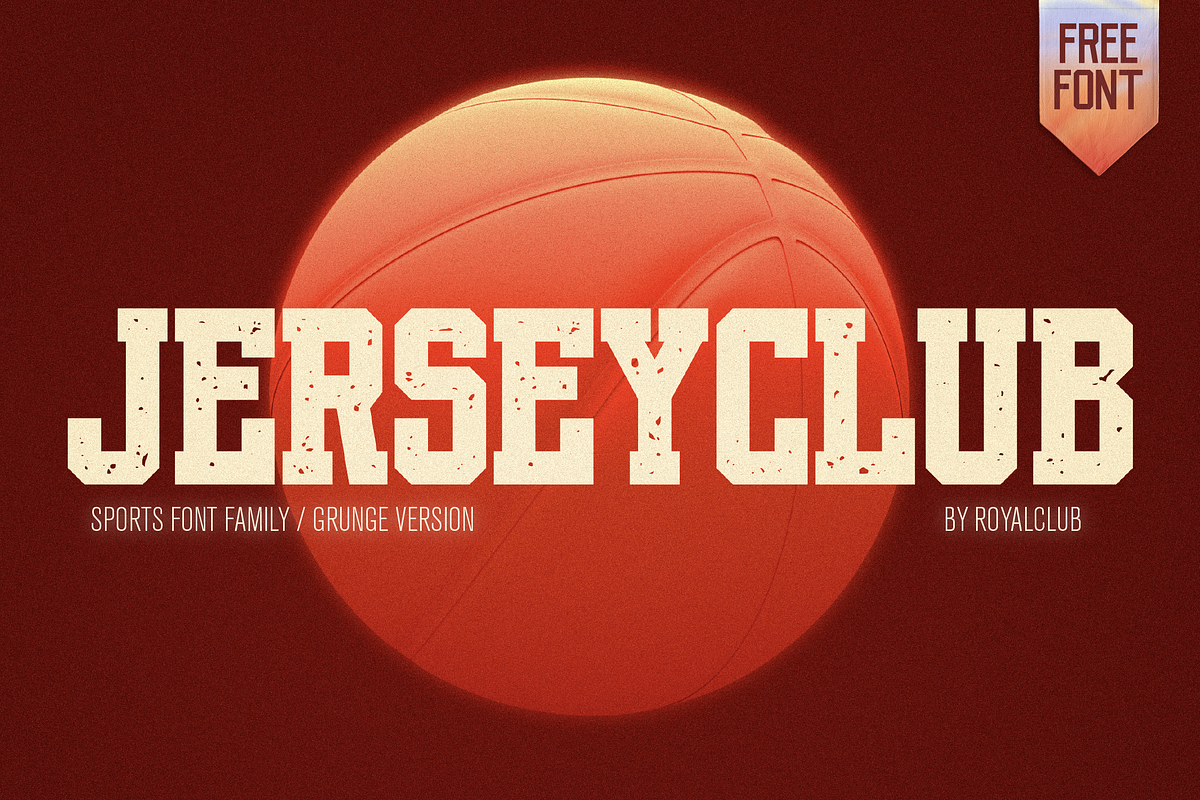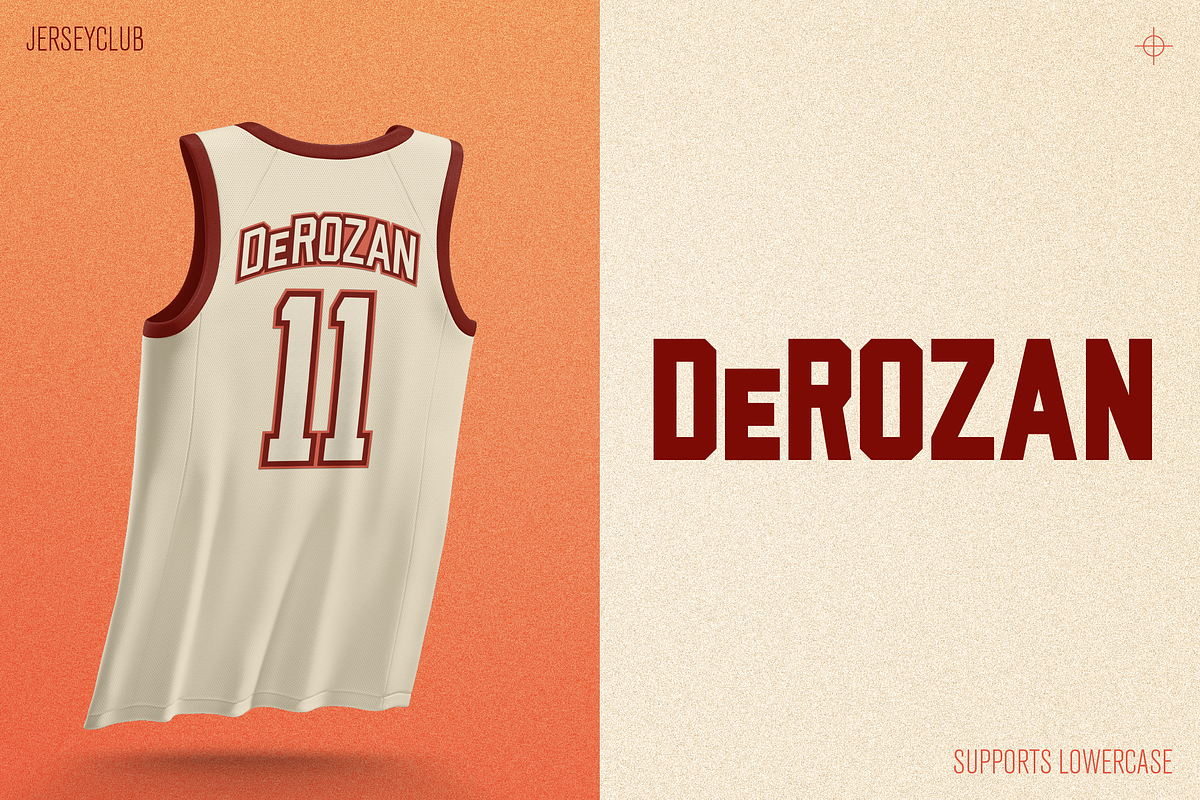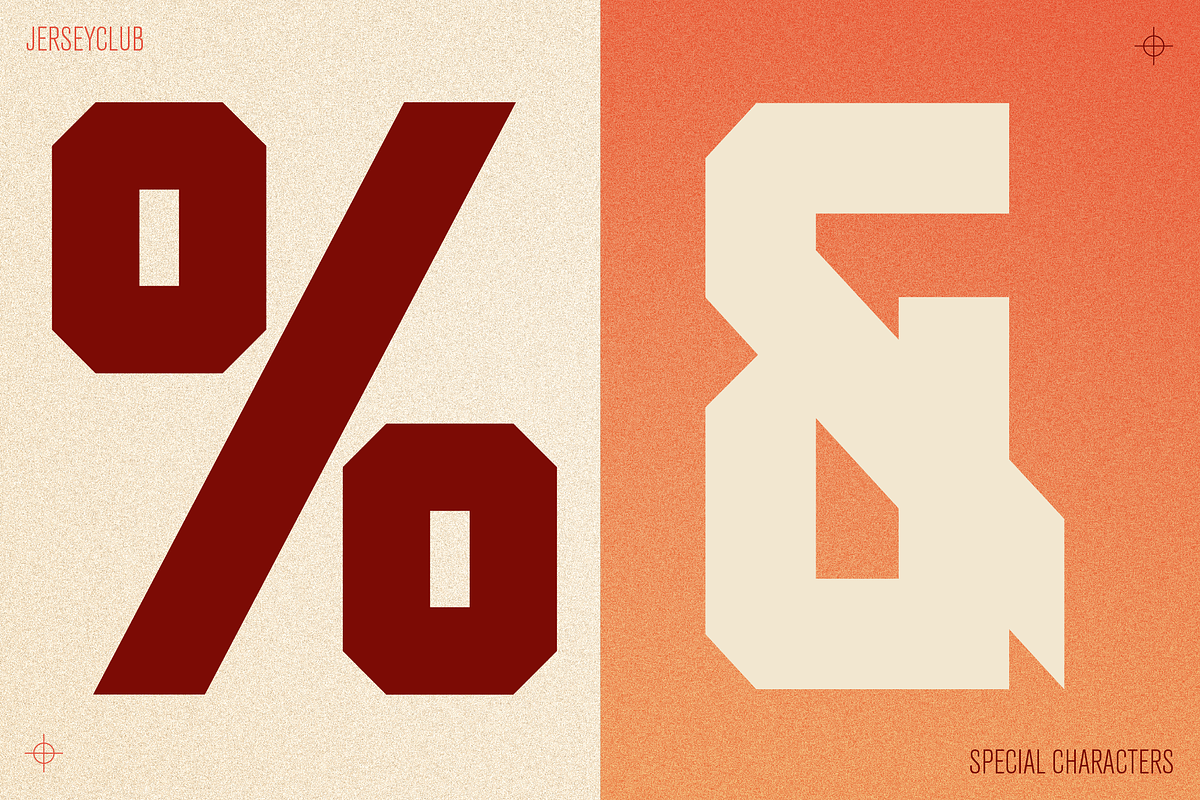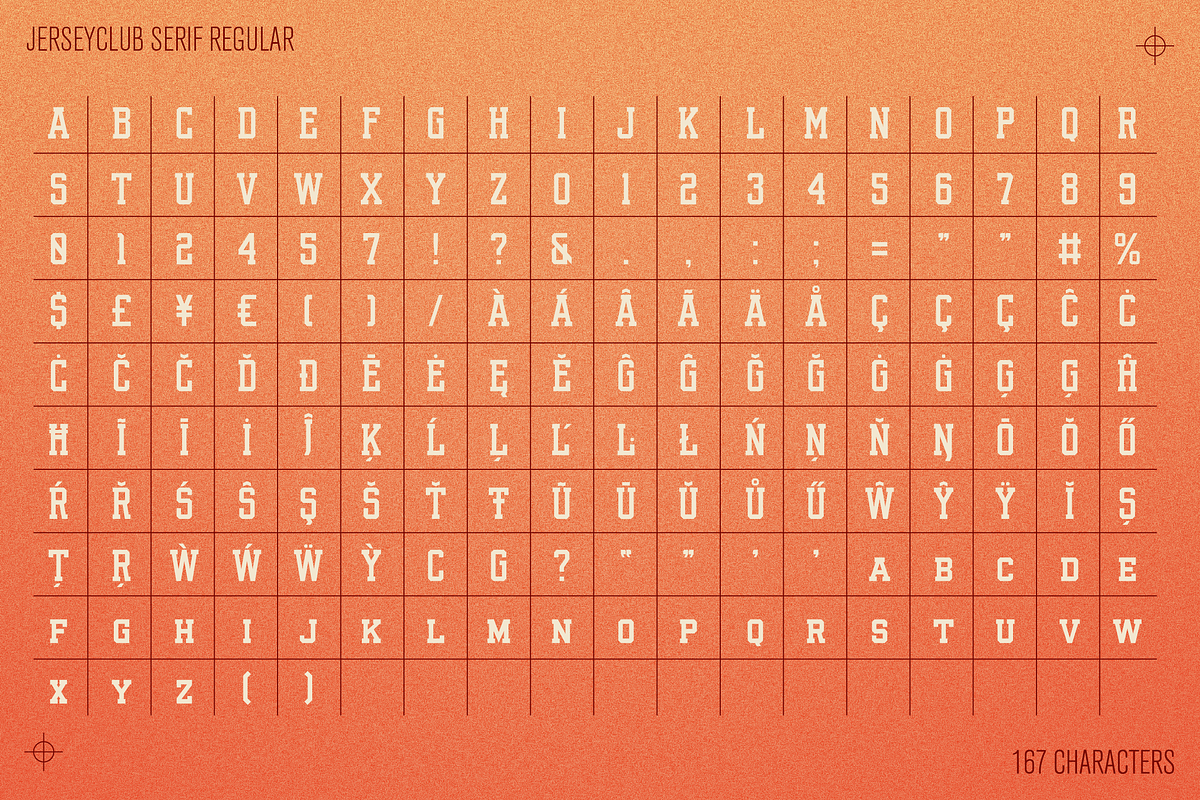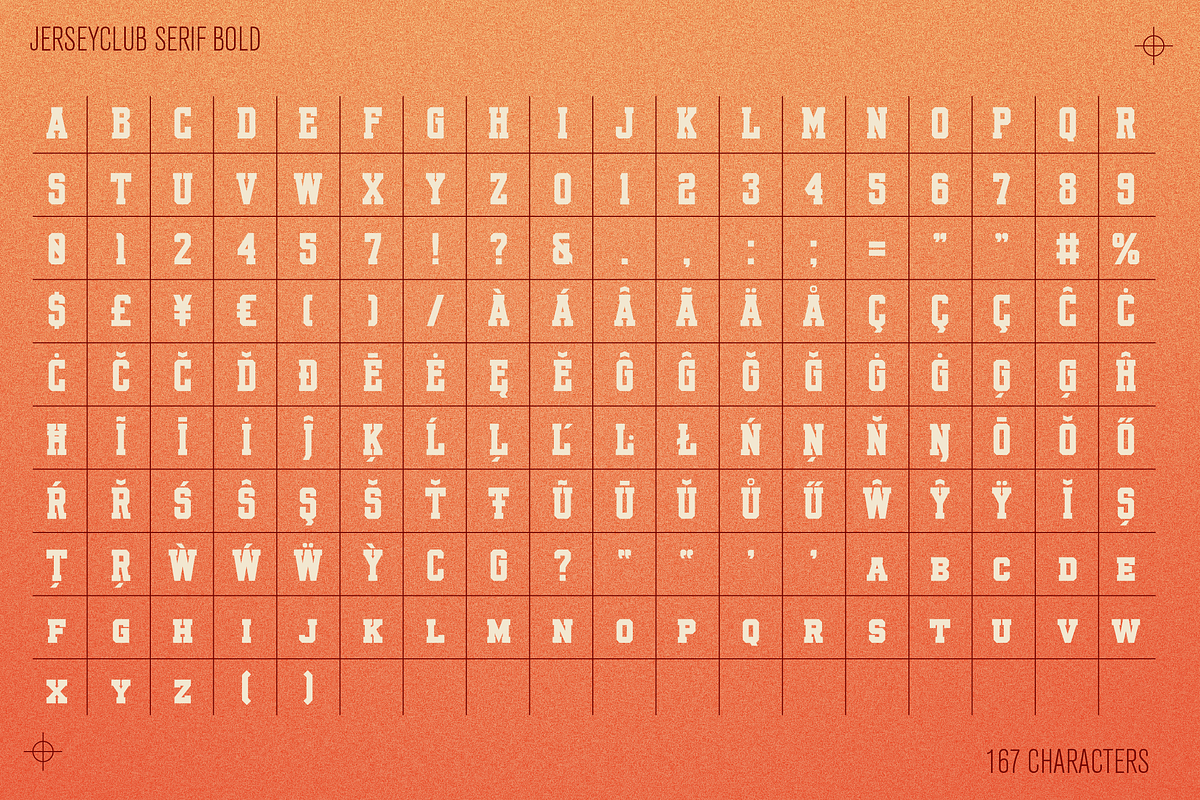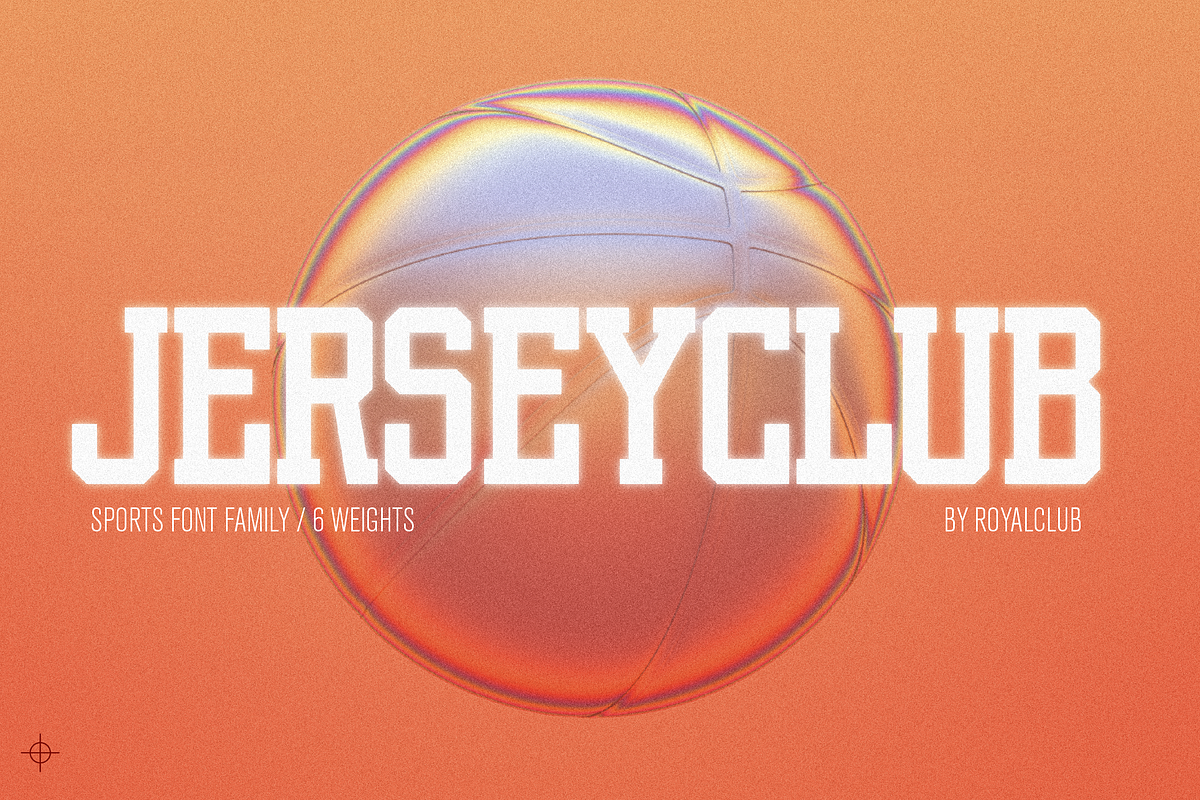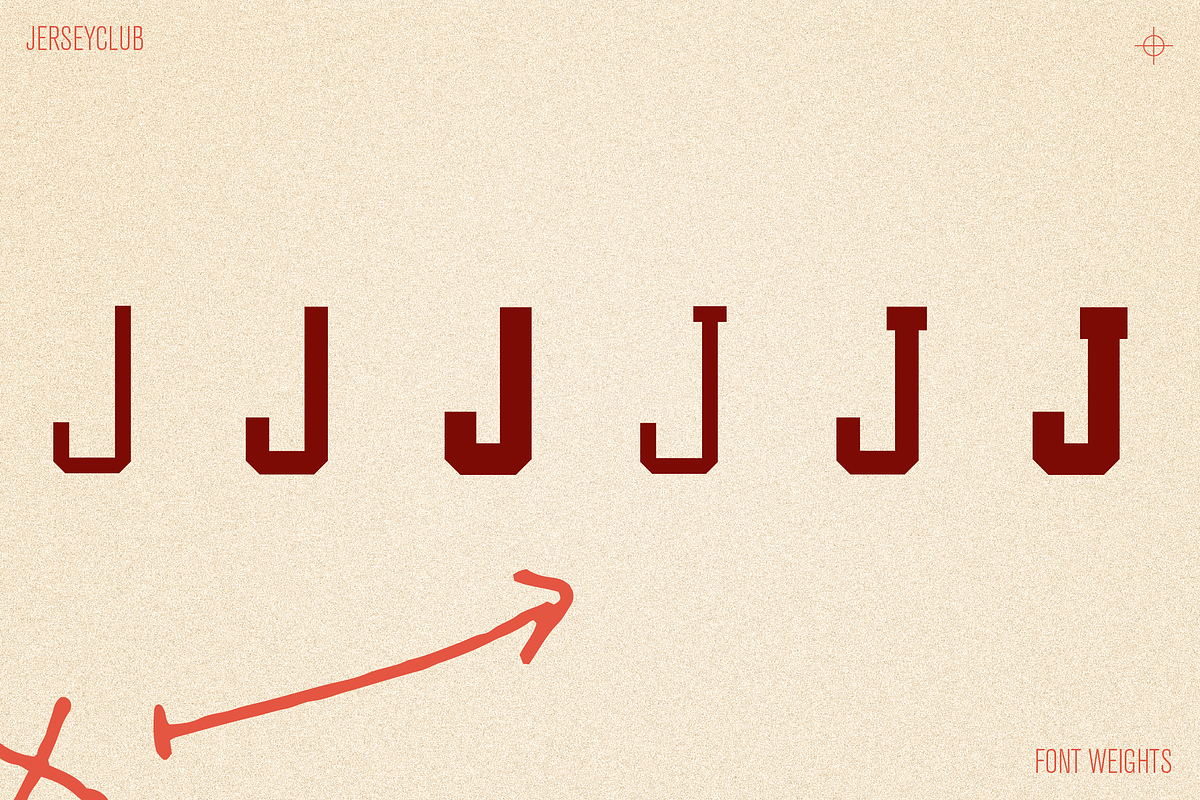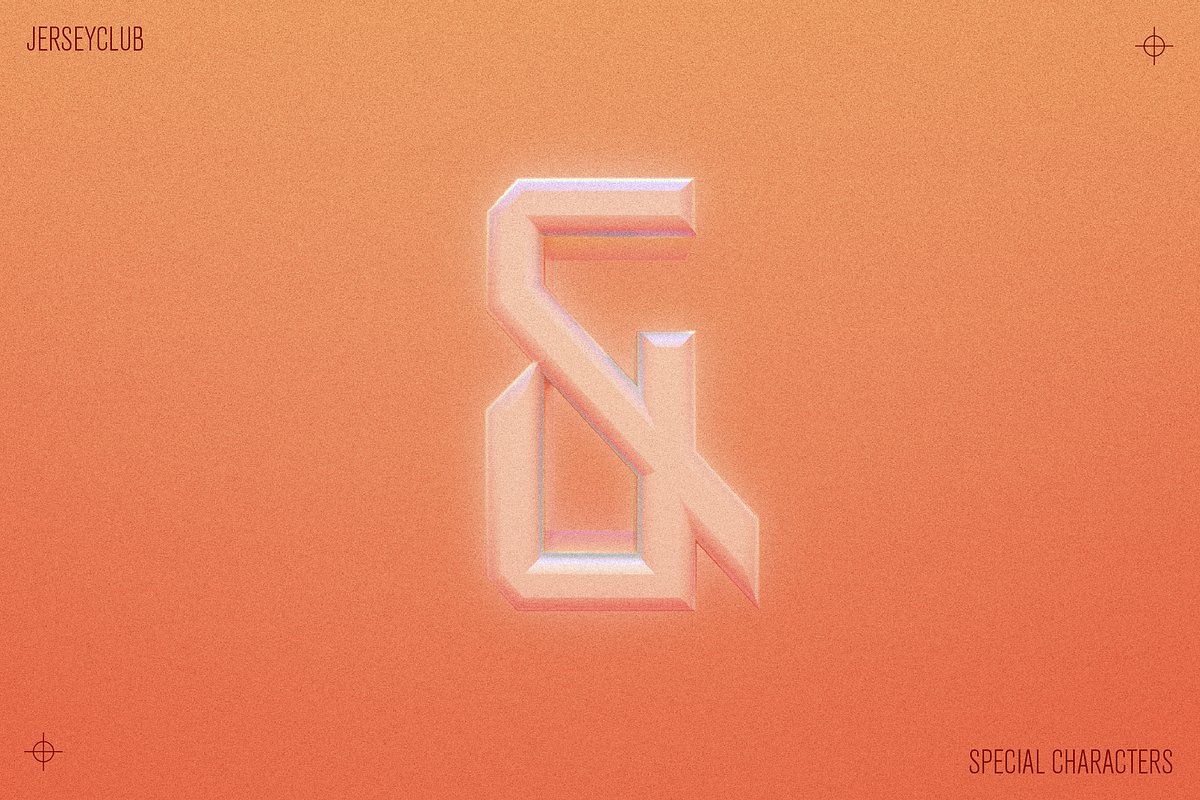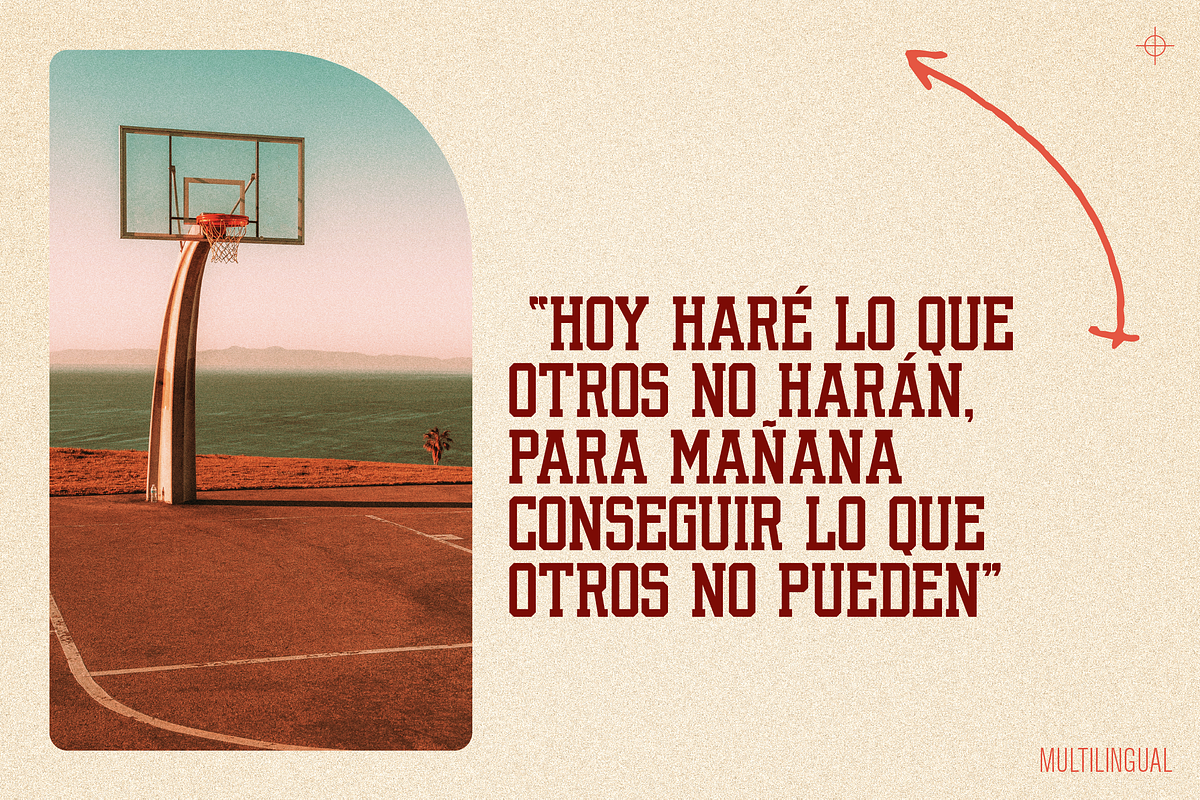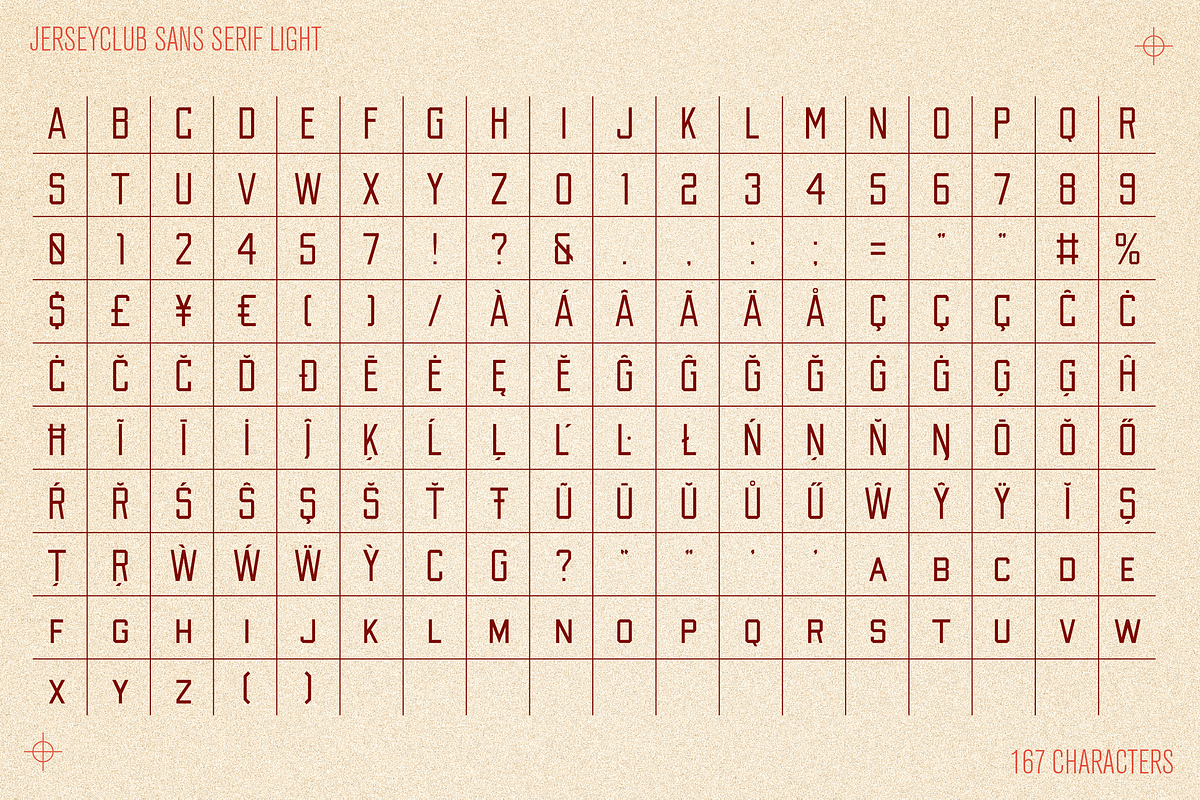
JERSEYCLUB Family
JERSEYCLUB is a new complete typeface family designed for sports usage.
Created to catch up with the lack of sporty fonts with multilingual support, special characters, numbers and symbols, JERSEYCLUB comes in Serif & Sans Serif editions.
Each edition comes in 3 weights (light, regular & bold) to match most sport topics and usage. Jerseyclub typefaces contains 167 glyphs, and all of them includes caps and small caps.
JERSEYCLUB SANS :
- LIGHT
- REGULAR
- BOLD
JERSEYCLUB SERIF :
- LIGHT
- REGULAR
- BOLD
Additional free typeface : JERSEYCLUB BOLD SERIF grunge.